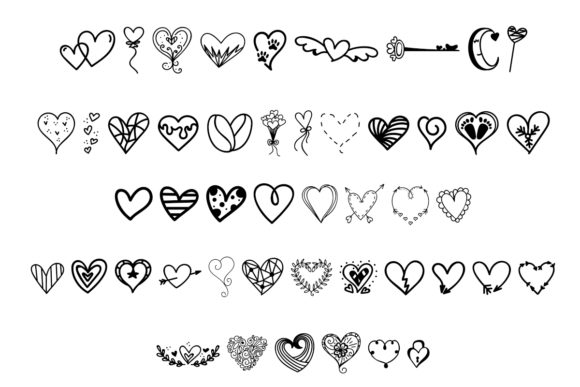
About Heart Dingbats Font
The Heart Dingbats are a set of beautiful and versatile dingbat designs that are sure to make a statement in any project. Whether you’re designing a logo for a wedding planning company or simply want to add a touch of romance to your design, these dingbats are the perfect choice.
The Heart Dingbats are a great choice for anyone looking to create a stunning and unforgettable design. Whether you’re designing a logo, a card, a sign, or any other visual element, these dingbats are sure to catch the eye of your audience and instantly convey a sense of beauty and romance.
One of the best ways to use the Heart Dingbats is to add a touch of love and romance to your design. Whether you’re creating a logo for a wedding planning company, a bouquet-designing service, or simply want to add a touch of love to your project, these dingbats are the perfect way to add a touch of beauty and romance to your design.
If you’re looking for a dingbat font that will add a touch of romance or beauty to your design, The Heart Dingbats are the perfect choice. With their beautiful and romantic design, they’re sure to create a striking and memorable look to any project. Whether you’re looking to convey a message of love, grace, or simply want to bring a touch of romance to your design, The Heart Dingbats are an incredible asset to your fonts’ library and have the potential to elevate any project with a touch of romance.